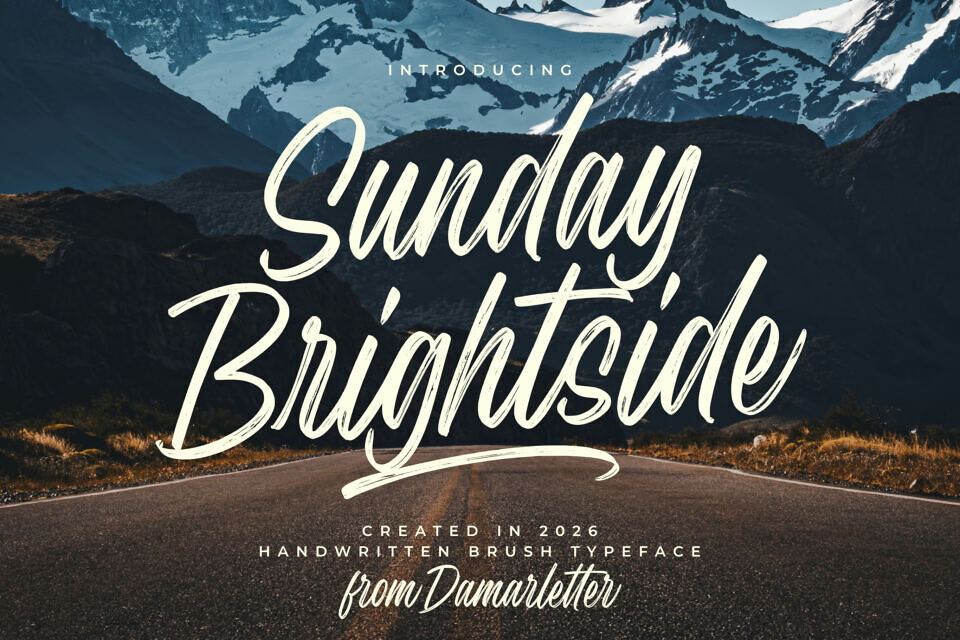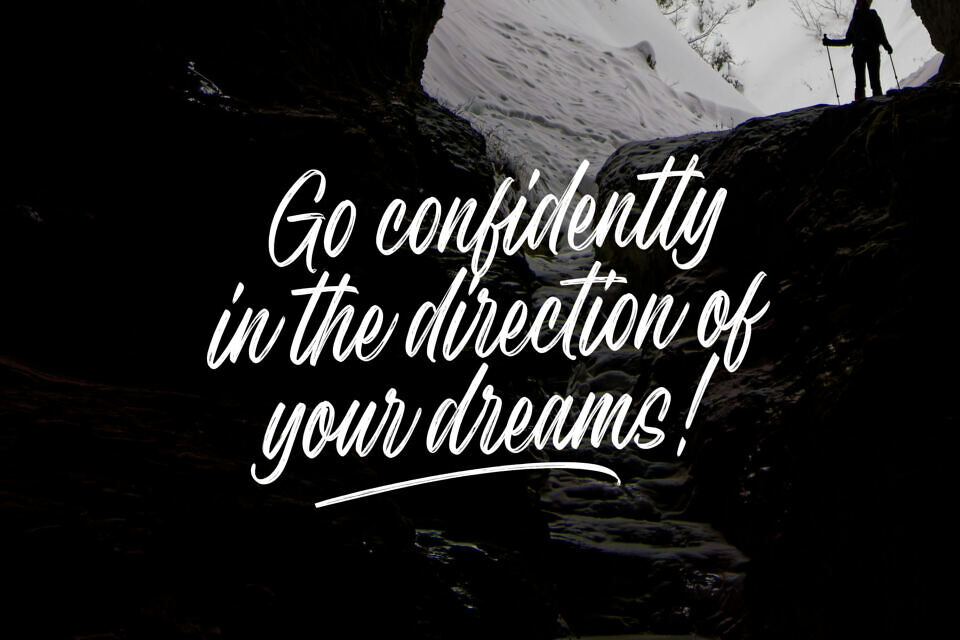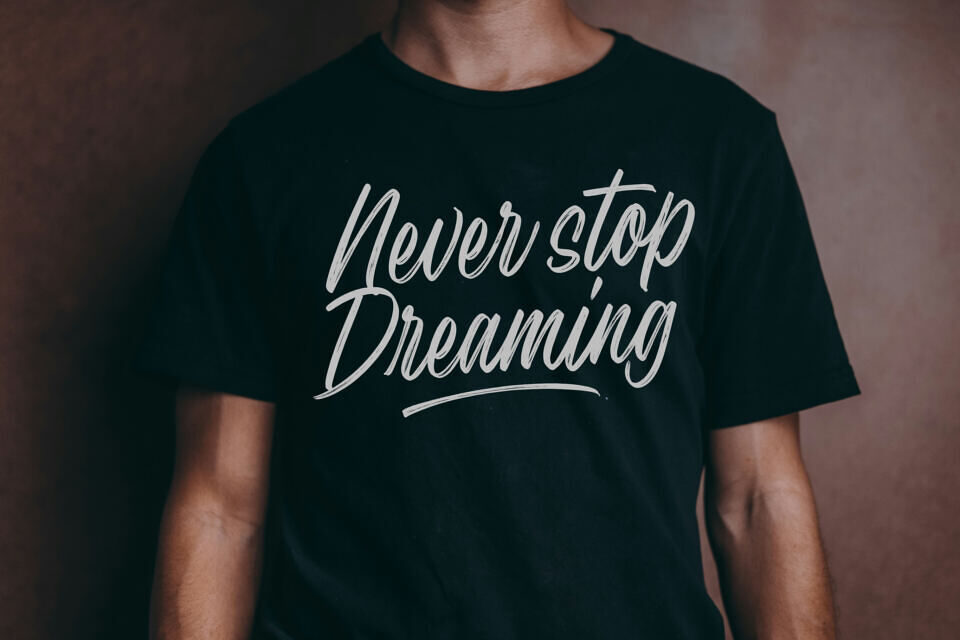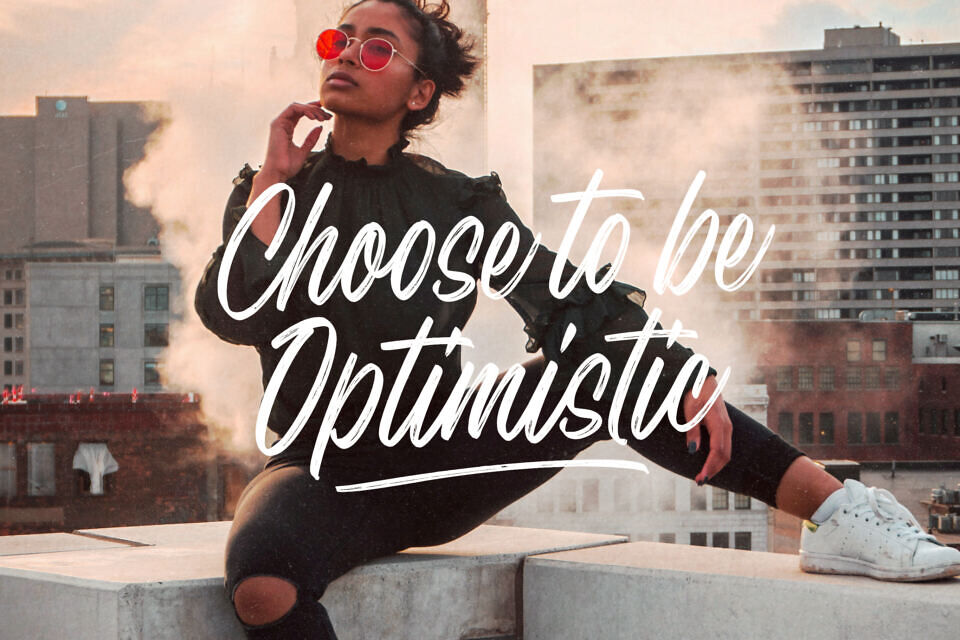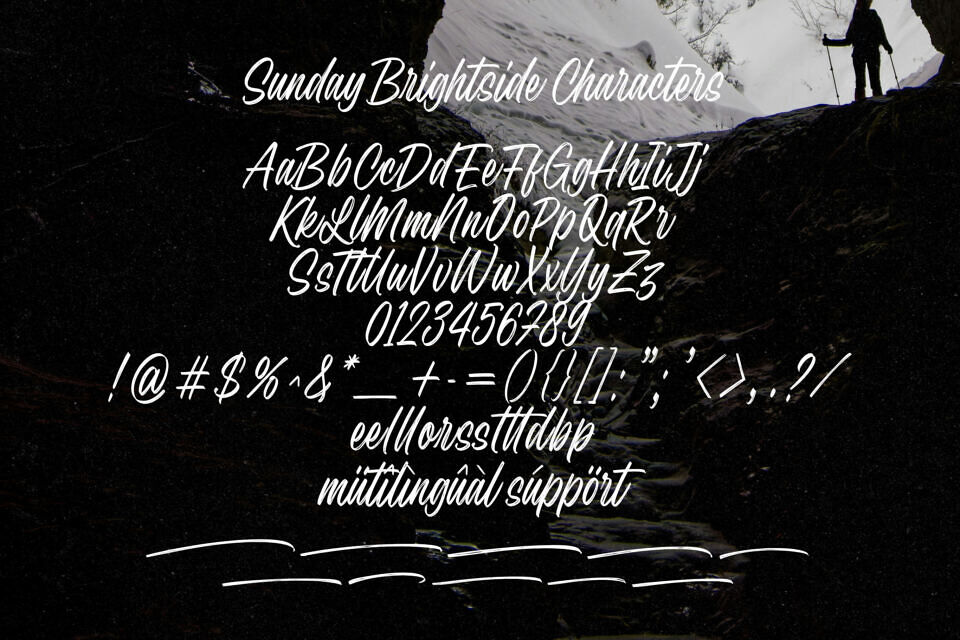
Sunday Brightside is a lively and expressive handwritten brush typeface that captures the joy and freedom of creative expression. With its bold, textured strokes and natural hand-painted flow, this font radiates positivity and charm, making it perfect for designs that aim to feel energetic and uplifting.
Inspired by the spontaneity of brush lettering, Sunday Brightside features dynamic letterforms with authentic brush textures that add depth and personality to every word. Whether you’re designing eye-catching posters, stylish branding, social media graphics, or playful packaging, this typeface brings a fresh and modern vibe to your projects.